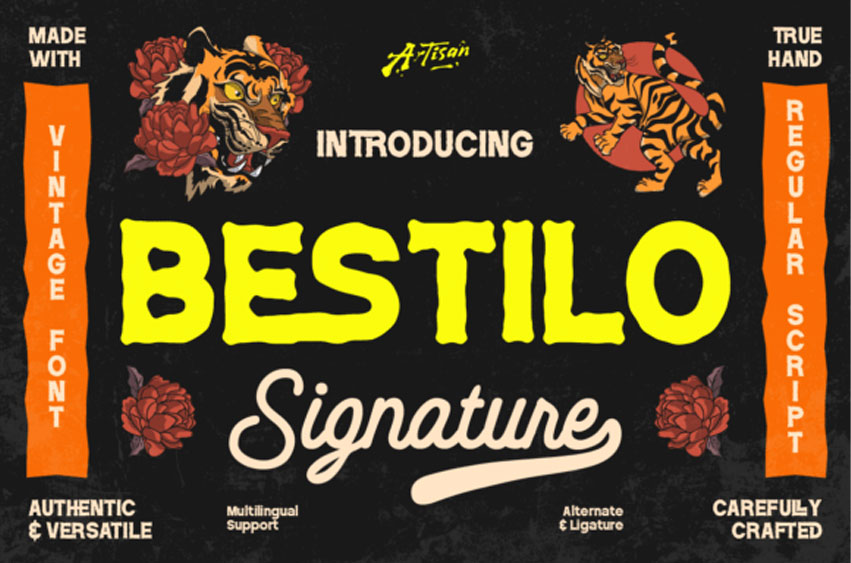
Bestilo Signature Duo Font
Bestilo Signature Duo Font is a cool duo-style font that mixes bold vintage energy with smooth hand-written charm. The regular style gives you that rough, authentic, handcrafted look—perfect for headlines, posters, merch, and anything that needs attitude.
Bestilo font is a robust, authentic vintage display typeface with a distinctly handcrafted and slightly rugged texture, capturing the spirit of classic American tattoo and artisan signage. Its chunky, bold letterforms feature subtly rounded edges and a playful swagger, providing a warm, inviting, yet powerful presence.
Paired seamlessly with the accompanying Signature Script (as shown in the preview, highlighting the versatility of the Bestilo typeface), it offers a complete, cohesive design solution. The font supports alternates and ligatures, allowing for highly customized and unique logo creations and headers. This Bestilo display font is perfect for brewery labels, custom apparel, vintage-themed branding, food and beverage packaging, and any project that values a true hand-made aesthetic.
The Bestilo font is an energetic workhorse that blends bold presence with a charming, authentic artisan feel, promising an eye-catching design every time.